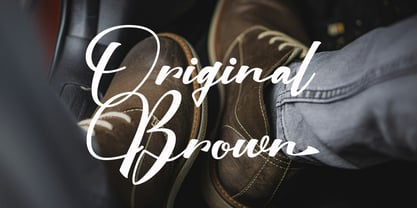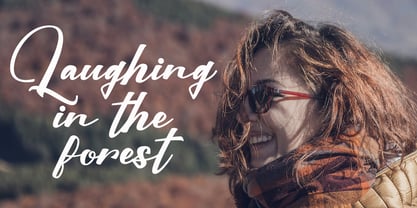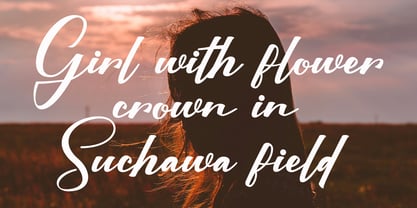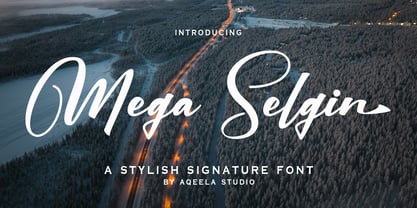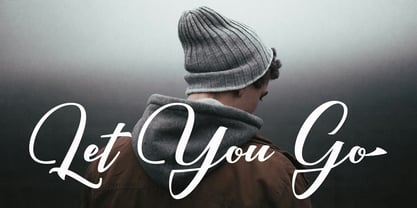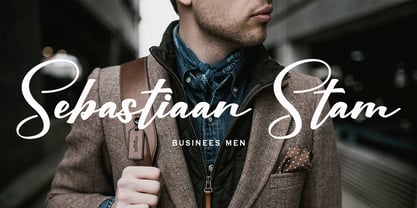
Mega Selgin
par Aqeela Studio
La famille de polices Mega Selgin a été conçue par Muhammad Nasir et publiée par Aqeela Studio. Mega Selgin contient 1 styles.
Mega Selgin is a signature font that captures the fluidity of a personal inscription with a touch of modern elegance. It's a dance of graceful strokes and confident curves, reminiscent of a handwritten note penned with a flourish. This font isn't just about letters; it's about personality, adding an intimate and sophisticated touch to any design. Imagine it gracing a wedding invitation, lending a personal touch to branding, or adding a touch of artistry to a social media post – Mega Selgin transforms simple text into a statement of refined individuality.
Concepteurs: Muhammad Nasir
Éditeur: Aqeela Studio
Fonderie: Aqeela Studio
Founded in 2018, Aqeela Studio is an independent type design studio dedicated to crafting expressive, high-quality typefaces for modern visual culture. With an ever-growing collection of fonts—ranging from bold display styles to versatile sans-serifs and elegant scripts—the studio is driven by a deep passion for letterforms and creative experimentation. Each typeface is carefully designed to deliver both function and beauty, empowering designers to elevate their visual storytelling across branding, editorial work, digital interfaces, and more.